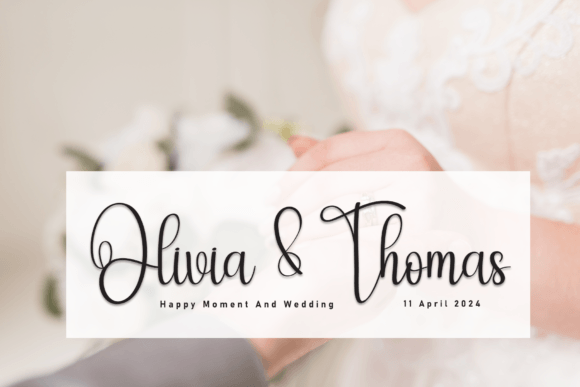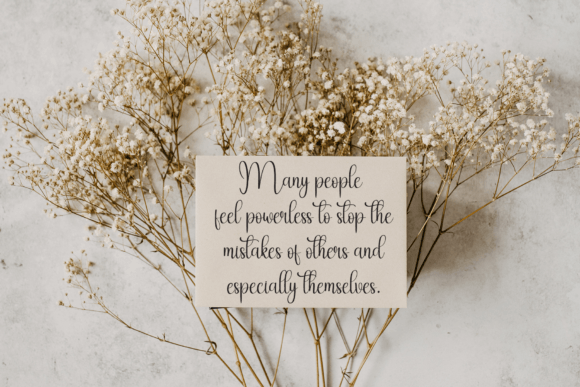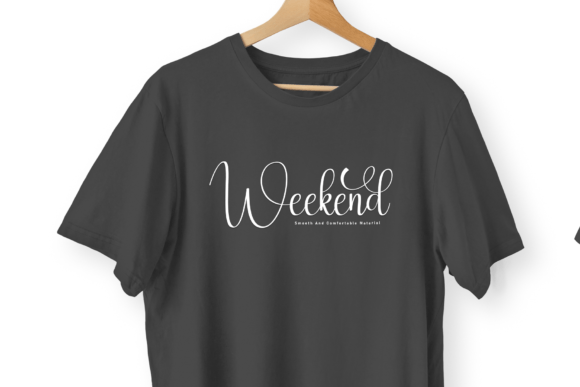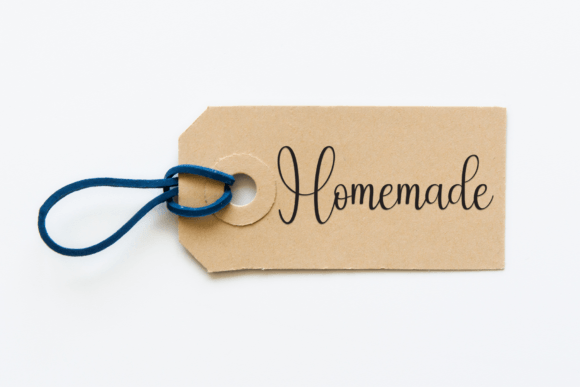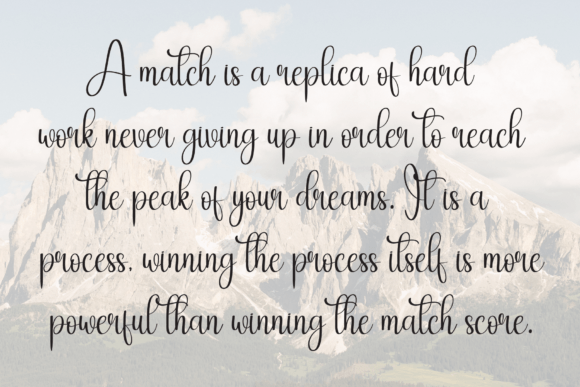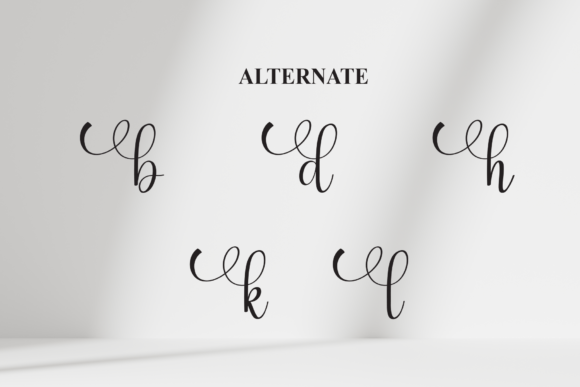
Introduction to Hundred Font
Have you ever been stuck in a creative rut, searching for the perfect font to elevate your design project? You know the feeling – scrolling through endless options, trying to find that elusive perfect fit. For many designers, this moment of uncertainty can be frustrating and time-consuming. But what if I told you there’s a solution that can save you from this design dilemma? Enter Hundred Font, a stunning and elegant script font that’s sure to add a touch of sophistication to any project.
As a valuable design resource, Hundred Font is perfect for any creative project that requires a handwritten touch. Whether you’re working on a wedding invitation, a thank you card, or a logo, this high-quality font is sure to impress. And the best part? It’s available for free download, making it an accessible and transparent design option for designers of all levels.
With its unique style and versatility, Hundred Font is an essential tool for any designer looking to add a little extra flair to their work. So why settle for an ordinary font when you can have a hundred times the impact with this incredible script font?
Key Features of Hundred Font
- High-quality vector graphics for a professional look in any creative project
- Transparent background for seamless integration into any design
- Comes in a range of sizes, from 100 to 1000 points, to suit various design needs
- Resolution: 300 DPI for crisp and clear text in print materials
- Perfect for designers, artists, and creatives looking for a unique and versatile font
- Can be easily customized and edited using design software like Adobe Illustrator
Honest Review: Hundred Font
As a designer, I’m always on the lookout for high-quality fonts that can elevate my creative projects. I recently came across the Hundred Font, and I’m excited to share my honest review with you.
- High-quality design: The font is clean, modern, and well-designed, making it perfect for a variety of creative projects.
- Transparent background: The font has a transparent background, which allows for easy layering and design flexibility.
- Great for digital projects: The Hundred Font is ideal for digital projects, including websites, social media, and mobile apps.
While the Hundred Font is a great design resource, there are a few limitations to consider:
- Limited font styles: The Hundred Font only comes in a few styles, which may not be enough for designers who need a wide range of options.
- No bold or italic versions: Unfortunately, the font does not have bold or italic versions, which can be a limitation for designers who need to emphasize certain text.
Overall impression
Overall, I’m impressed with the Hundred Font. While it has some limitations, its high-quality design and free download make it a great resource for designers. If you’re looking for a modern, clean font for your creative project, the Hundred Font is definitely worth checking out.
Hundred Font
The Hundred Font is a high-quality, free download that can be used in various creative projects. It’s an excellent design resource for anyone looking to add a touch of elegance to their work. The font features a transparent background, making it easy to use in any design.
To get the most out of the Hundred Font, try the following:
- Use the font in combination with other design elements, such as images and graphics.
- Take advantage of the font’s transparent background to create a seamless design.
The Hundred Font is perfect for:
- Business cards and brochures.
- Blog posts and social media graphics.
- Any other creative project where a high-quality font is needed.